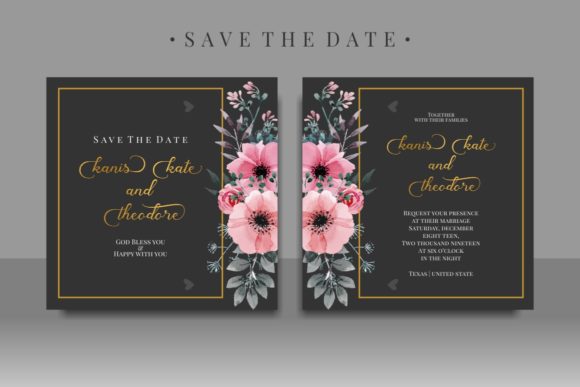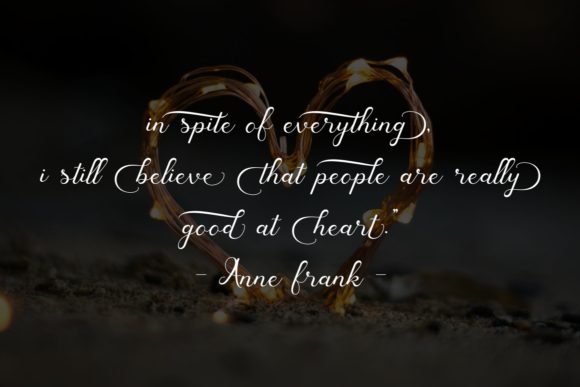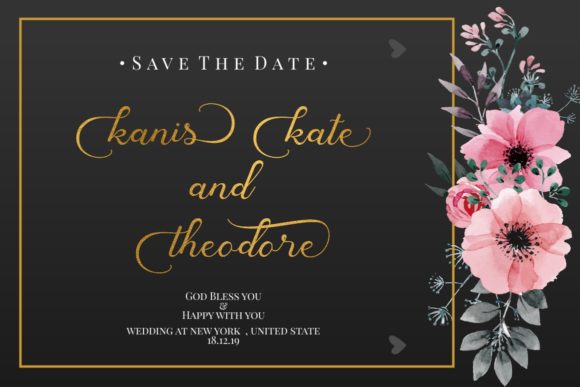
Introduction to Havina Font
As designers, we’ve all been there – staring at a blank canvas, trying to bring our creative vision to life. The blank page can be intimidating, but what if you had the perfect design resource to spark your imagination? Enter the Havina Font, a strong and powerful script that will turn any design idea into a true standout. With its high-quality design and transparent background, this font is the perfect addition to any creative project.
Whether you’re working on a logo, poster, or brochure, the Havina Font is sure to elevate your design to the next level. And the best part? It’s available for a free download, making it a valuable resource for designers of all levels. In this article, we’ll explore the world of Havina Font and discover why it’s a must-have for any design enthusiast.
Key Features of Havina Font
- High-quality design resource perfect for creative projects, available for free download.
- Unique, modern font with a transparent background, ideal for use on various design elements.
- Perfect for use in digital design, including logos, icons, and graphics, due to its modern and sleek design.
Honest Review: Havina Font
I recently had the opportunity to work with the Havina Font, a free download that has quickly become one of my go-to design resources. The high quality of this font is immediately apparent, making it perfect for creative projects that demand attention to detail.
- Beautifully crafted characters that are perfect for use in logos, branding, and typography-based designs.
- Comes with a transparent background, making it easy to use in various design applications.
- Highly legible and versatile, making it suitable for a wide range of creative projects.
- No bold or italic font styles are included in the free download, which may limit its use in certain design situations.
- The font is not optimized for use in very small sizes, which may affect its readability in certain contexts.
Overall, I’m impressed with the Havina Font and would highly recommend it to designers and creatives looking for a high-quality, free download to use in their projects.
Havina Font
The Havina Font is a high-quality, free design resource perfect for any creative project. With its transparent background, you can easily incorporate it into your designs without any distractions.
Tips for Getting the Most Out of Havina Font
To get the most out of the Havina Font, use it in conjunction with other design elements to create a cohesive look. Experiment with different font sizes and styles to add depth to your design.
Common Use Cases for Havina Font
The Havina Font is perfect for use in creative projects such as:
- Blog posts and articles
- Business cards and brochures
Alternatives to Havina Font
Great Vibes Font is a high-quality, free download perfect for creative projects that require a fun and playful touch. It features a transparent background, making it ideal for overlaying text on images or videos. Great Vibes Font is similar to Havina Font in its cursive style but has a more whimsical feel.
Carolyna Pro Font is a modern, high-quality design resource ideal for creative projects that require a sophisticated touch. It features a transparent background and comes in multiple styles, making it perfect for overlaying text on images or videos. Carolyna Pro Font is similar to Havina Font in its elegant feel but has a more refined and polished look.
Alex Brush Font is a high-quality, free download perfect for creative projects that require a touch of elegance and sophistication. It features a transparent background, making it ideal for overlaying text on images or videos. Alex Brush Font is similar to Havina Font in its handwritten feel but has a more delicate and refined look.
Does Havina Font have a transparent background?